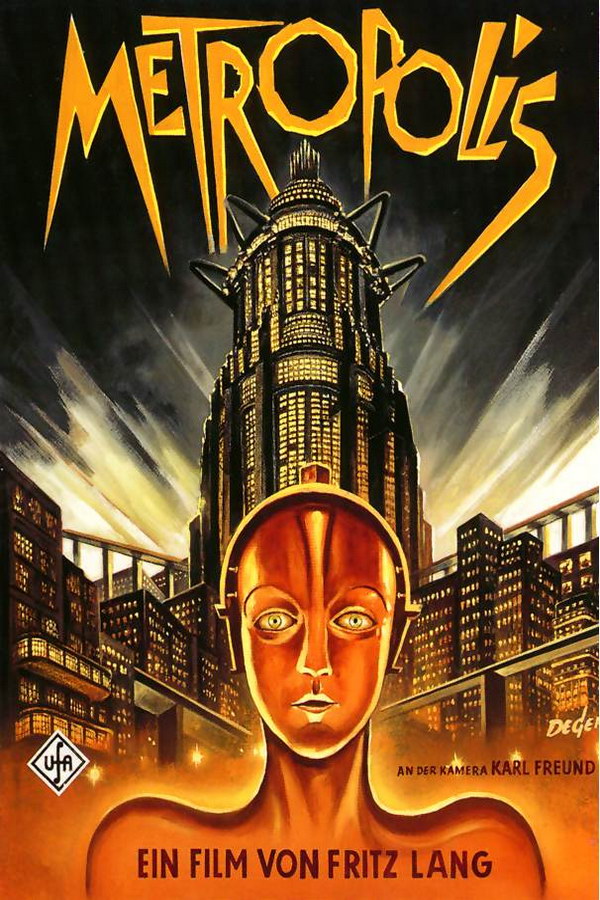
Metropolis Font
Fonts in UseMetropolis is a silent science fiction film released in 1927 and directed by Fritz Lang. The film portrays a dystopian future society where a wealthy ruling class lives in luxury while the working class toils underground, and follows a story of rebellion and love.